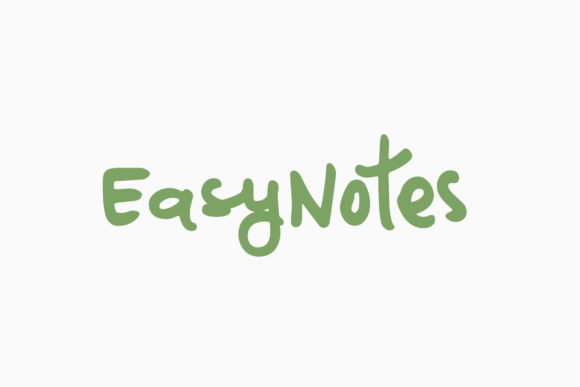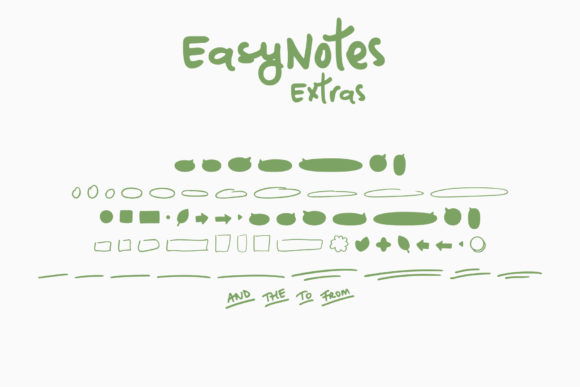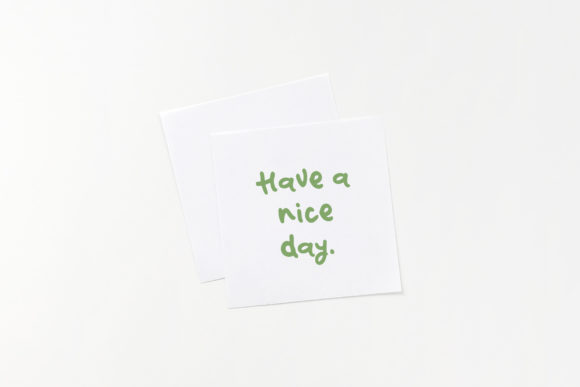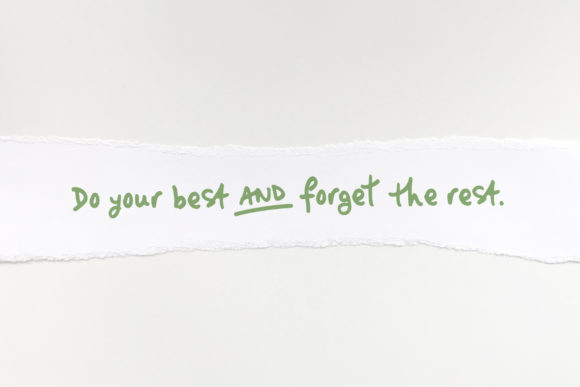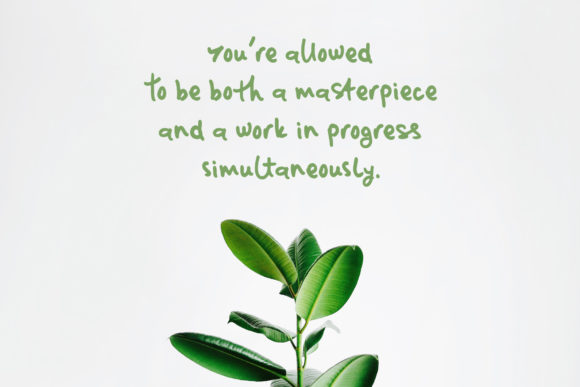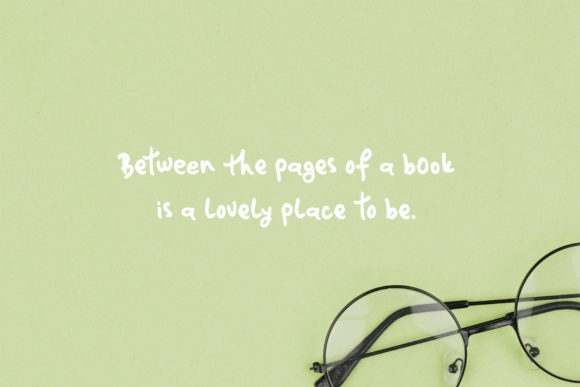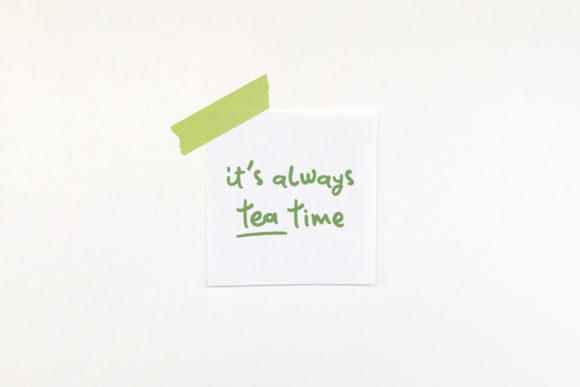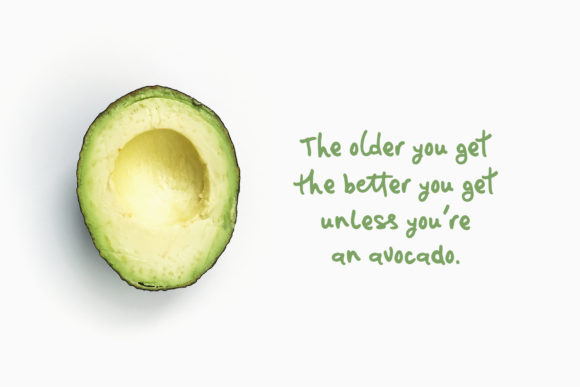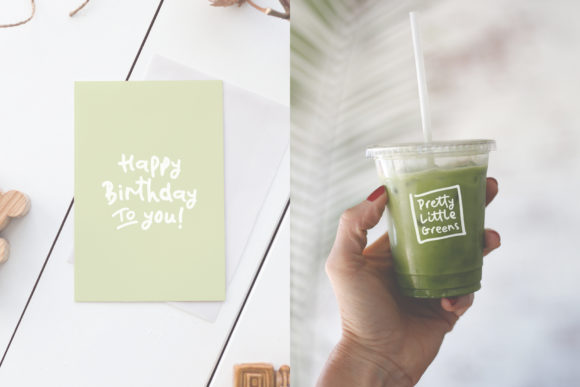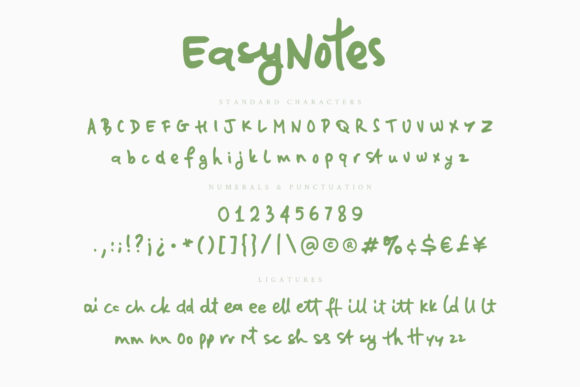
HomeScript FontsEasyNotes Font Script Fonts EasyNotes Font FacebookXPinterestWhatsApp EasyNotes Font Poster 2 EasyNotes Font Poster 3 EasyNotes Font Poster 4 EasyNotes Font Poster 5 EasyNotes Font Poster 6 EasyNotes Font Poster 7 EasyNotes Font Poster 8 EasyNotes Font Poster 9 EasyNotes Font Poster 10 EasyNotes Font Poster 11 About EasyNotes Font EasyNotes is a casual, handwritten marker font with multiple ligatures to help give a genuine handwriten look. DOWNLOAD ON CREATIVE FABRICAThis font is sold and delivered by Creative Fabrica. Font Canyon may earn a commission if you buy through this link. People also explored Tropical Time Font Square Tag Mockup Thank You Tag Michail Script Font Apple Font Montern Font Canette Little Things Font Koliluk Font Saj 372 0 TagsEasyNotes Font Previous articleFondness FontNext articleHey Mama Font LEAVE A REPLY Cancel reply Comment: Please enter your comment! Name:* Please enter your name here Email:* You have entered an incorrect email address! Please enter your email address here Website: Save my name, email, and website in this browser for the next time I comment. Personal Use Free The Royal Personal Use Free Read more about this font Muthiara Font Personal Use Free Read more about this font Doriss Girls Family Personal Use Free Read more about this font Yukarimobile Personal Use Free Read more about this font BLOG Modern Sans-Serif Fonts That Brands Love in 2025 In 2025, modern sans-serif fonts remain a top choice for brands looking to project clarity, professionalism, and... Top 7 Google Fonts Alternatives for Faster and Privacy-Friendly Web Design (2025) Top 10 Handwritten Fonts That Elevate Your Designs Best Fonts for YouTube Videos: Make Your Thumbnails Stand Out